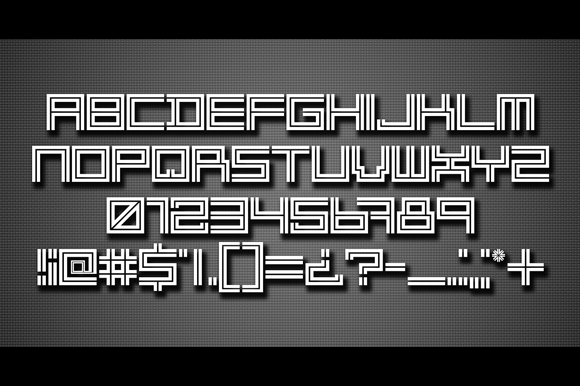
The Double Impact of Typography
Have you ever found yourself stuck on a design project, unable to convey the perfect message through text? We’ve all been there – staring at a blank screen, wondering how to make our words truly pop. It’s in these moments that the perfect font can be a game-changer, elevating our design from bland to grand. For designers seeking a modern and stylish solution, the 2 Lines Font is a refreshing find.
This sleek sans serif font boasts a double-lined style that adds depth and visual interest to any text. Whether you’re creating a logo, brochure, or website, the 2 Lines Font is a versatile choice that’s sure to impress. Its simplicity and modern aesthetic make it a valuable addition to any designer’s toolkit, allowing for endless creative possibilities.
Key Features of “2 Lines Font”
- Unique Characteristic: The distinctive double-line design provides a unique aesthetic, ideal for use in creative and attention-grabbing contexts.
2 Lines Font Review
Overall, I think 2 Lines Font has some great qualities, but it’s not without its limitations. Let’s dive in!
✨ I love the creative approach to typography. The font’s unique design, with two lines forming each character, adds a touch of whimsy to any project.
✨ The font is highly customizable, which is perfect for designers who like to experiment with different styles and layouts.
✨ The font family includes a range of weights and styles, making it easy to find the perfect fit for your project.
⚠️ One of the main limitations of 2 Lines Font is its readability at smaller font sizes. The intricate design can make it difficult to read, especially in text-heavy content.
⚠️ The font may not be suitable for projects where clarity and precision are paramount, such as in technical documentation or financial reports.
⚠️ Additionally, the font’s uniqueness can be both a blessing and a curse. While it’s perfect for creative projects, it may not be the best choice for more conservative or traditional designs.
2 Lines Font is a great choice for designers who want to add a touch of creativity and playfulness to their projects. While it has its limitations, the font’s unique design and high customizability make it a great addition to any designer’s toolkit.
The 2 Lines Font is ideal for:
- Creating decorative text effects.
- Adding visual interest to headings and titles.
- Designing logos and branding materials.